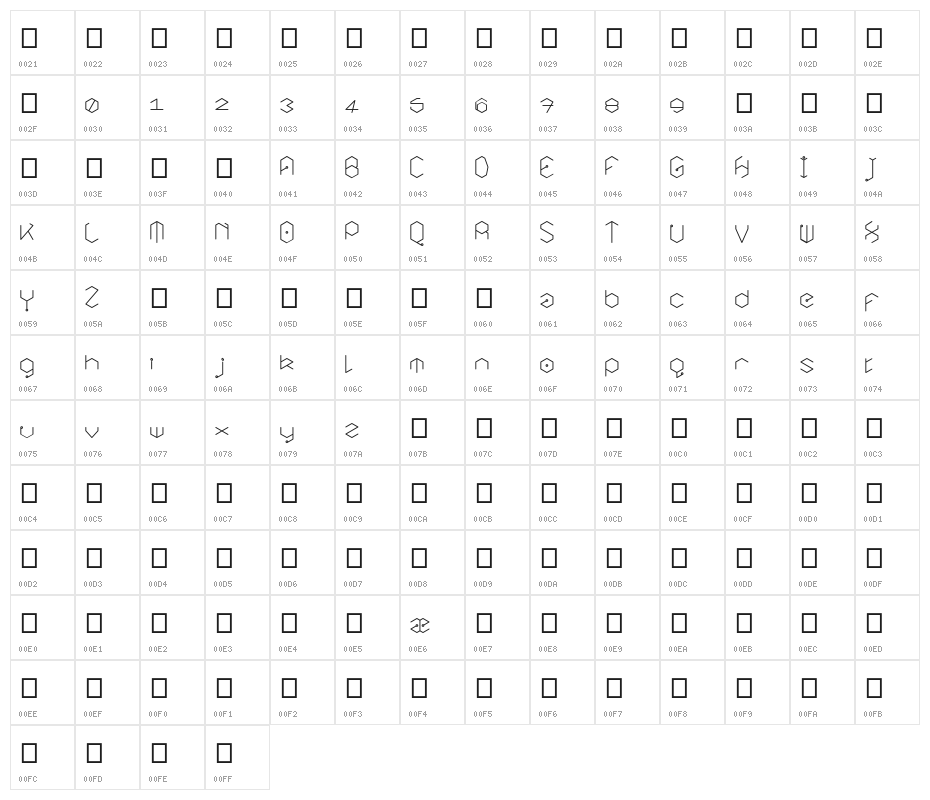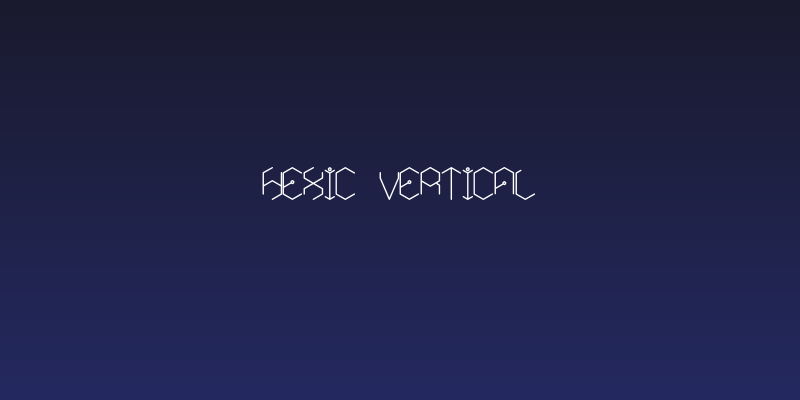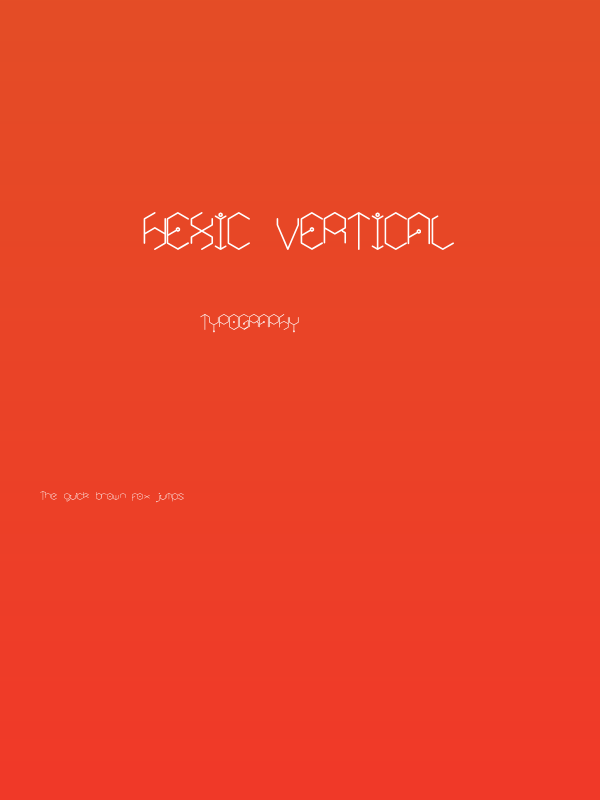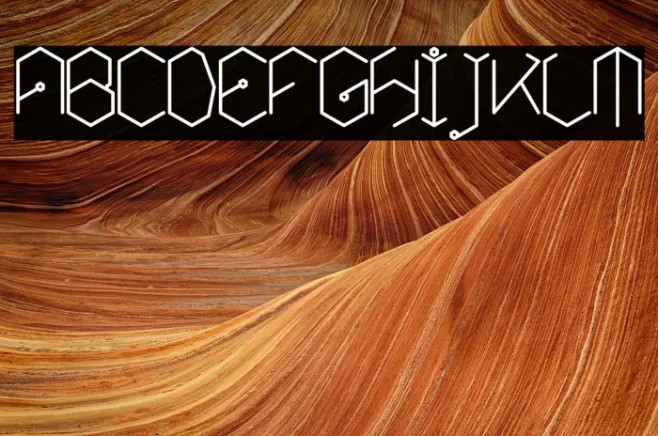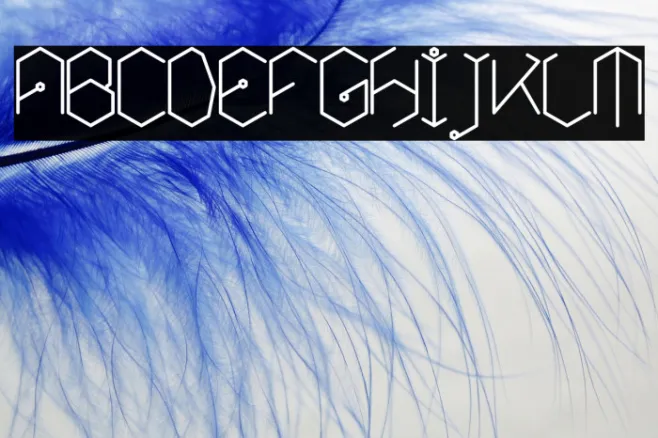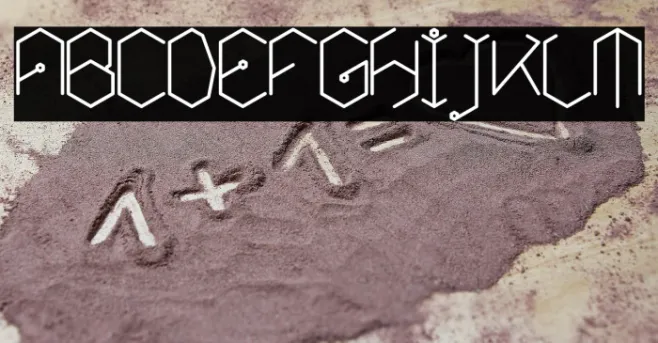
Hexic Vertical Font
Hexic Vertical Description
This font features a unique geometric design with hexagonal shapes forming the basis of each character. The letters are constructed with clean, straight lines and sharp angles, giving it a futuristic and technical appearance. Small circular accents are strategically placed within the hexagonal forms, adding a touch of intricacy and detail. The font maintains a consistent line weight throughout, contributing to its modern and minimalist aesthetic. Its distinct style makes it stand out, ideal for projects that require a bold and innovative look.
| Use Case | Logos, Posters, Titles |
| Proposed Projects | Ideal for technology branding, sci-fi themed designs, video game interfaces, and modern art projects. |